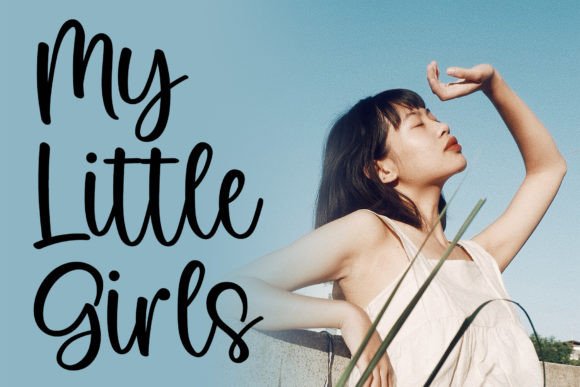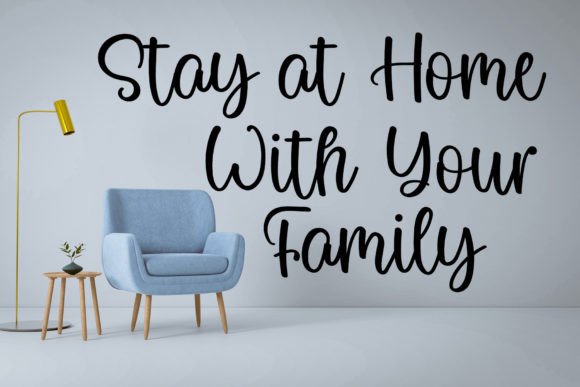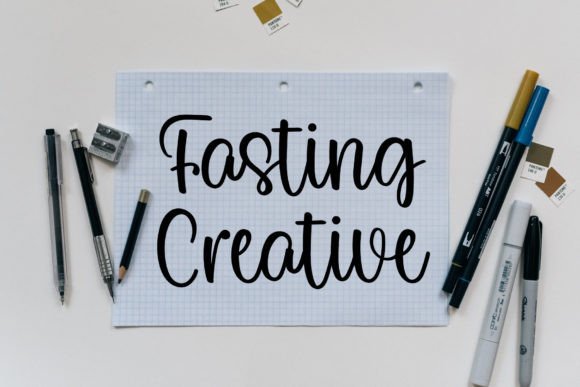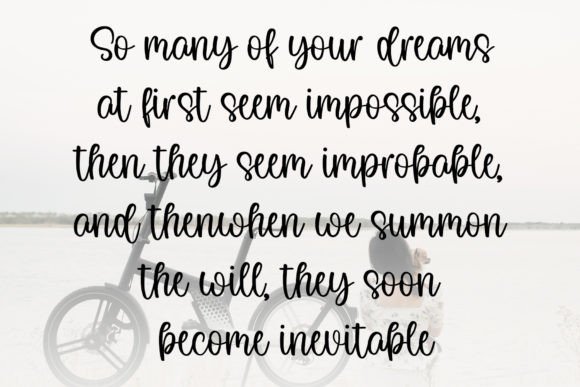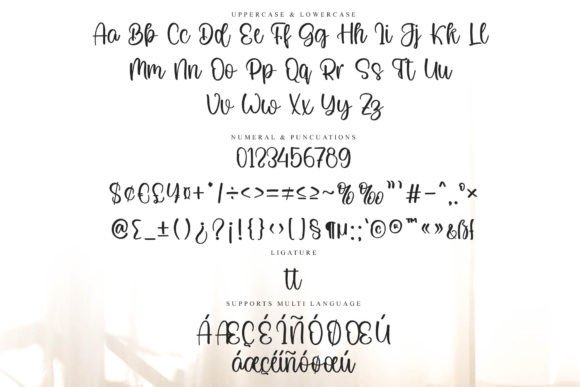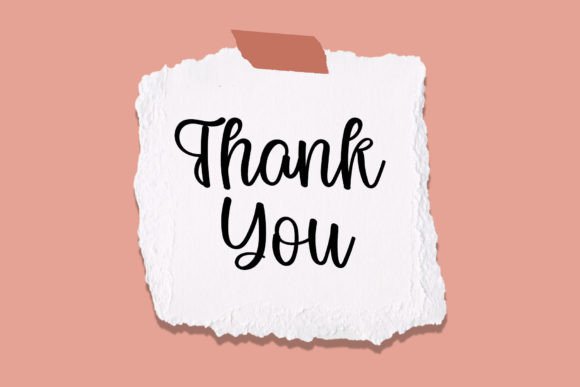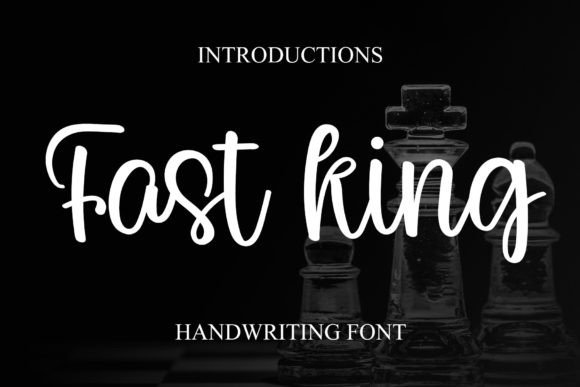
Introducing Fast King Font: Elevate Your Designs with a Stylish and Modern Handwritten Touch
In the world of design, fonts play a crucial role in conveying the tone and personality of a brand or project. If you’re on the hunt for a typeface that exudes elegance, sophistication, and a touch of modernity, look no further than the Fast King Font. This stunning handwritten font is versatile, stylish, and perfect for a wide range of applications, from greeting cards and headlines to branding and packaging.
The Characteristics of Fast King Font
Fast King Font is a beautifully crafted handwritten font that boasts a unique blend of classic and modern elements. Its stylish and fluid strokes give it a dynamic, energetic feel that’s sure to capture the attention of your audience. The font’s modern design makes it perfect for designers and crafters looking to add a fresh and contemporary touch to their work.
One of the standout features of Fast King Font is its exceptional legibility. Even at smaller sizes, the font remains clear and easy to read, making it ideal for use in a variety of contexts, from body text to headlines. Additionally, the font’s versatility means it can be used for both personal and commercial projects, giving you the freedom to create without restrictions.
What Makes Fast King Font So Versatile?
Fast King Font is designed to be adaptable, making it suitable for a wide range of applications. Here are just a few examples of how you can use this amazing font:
- Greeting Cards: Add a personal touch to your greeting cards with Fast King Font’s elegant and cursive script.
- Headlines: Make your headlines stand out with the font’s bold and attention-grabbing style.
- Branding: Use Fast King Font to create a unique and memorable brand identity that sets you apart from the competition.
- Packaging: Elevate your packaging designs with the font’s modern and sophisticated aesthetic.
Why Choose Fast King Font?
With so many fonts available, why should you choose Fast King Font for your next project? Here are just a few compelling reasons:
- Unique Style: Fast King Font offers a distinctive and stylish look that’s sure to set your designs apart.
- Ease of Use: The font is incredibly easy to use, even for those with limited design experience.
- High-Quality: Fast King Font is a high-quality font that’s designed to deliver exceptional results.
Tips for Using Fast King Font Effectively
To get the most out of Fast King Font, here are a few tips to keep in mind:
- Experiment with Sizes: Don’t be afraid to experiment with different font sizes to find the perfect balance for your design.
- Pair with Other Fonts: Fast King Font pairs beautifully with other fonts, so don’t be afraid to get creative with font combinations.
- Use it Sparingly: While Fast King Font is incredibly versatile, it’s best used sparingly to avoid overwhelming your design.